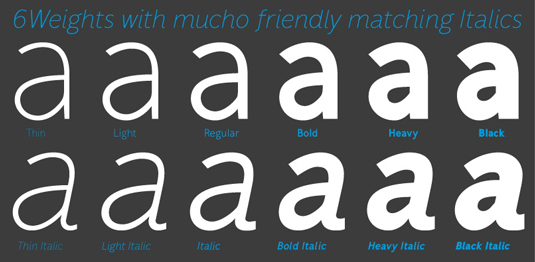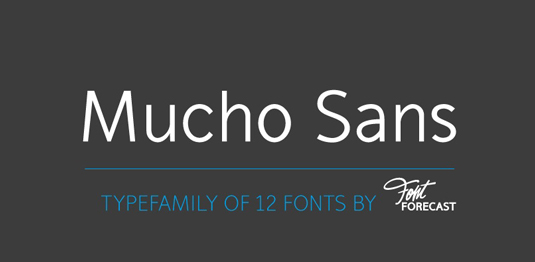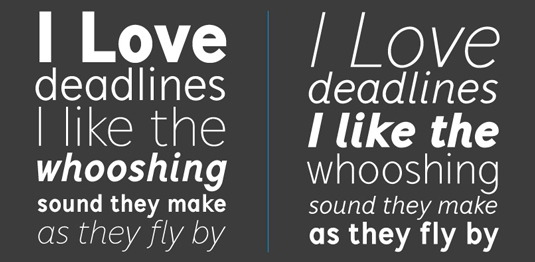
Font of the day: Mucho Sans
Mucho Sans by Hanneke Classen
A clean, modern typeface, Mucho Sans was created by designer Hanneke Classen. A contemporary, versatile type family, Mucho Sans is perfectly suited to both display and text uses.